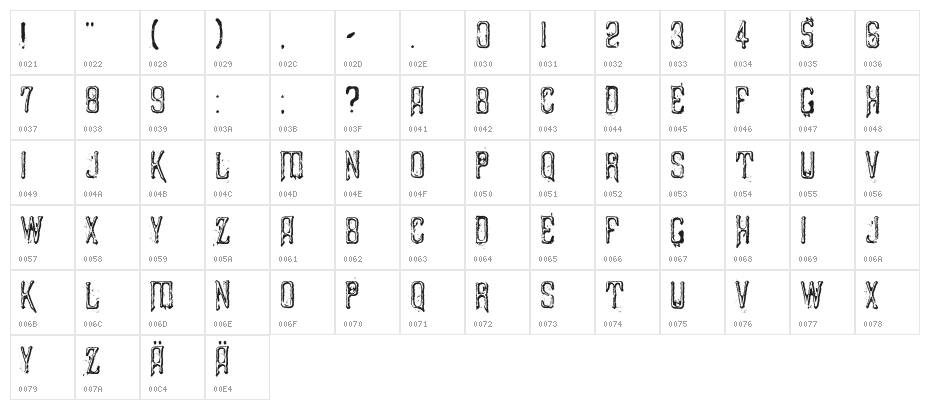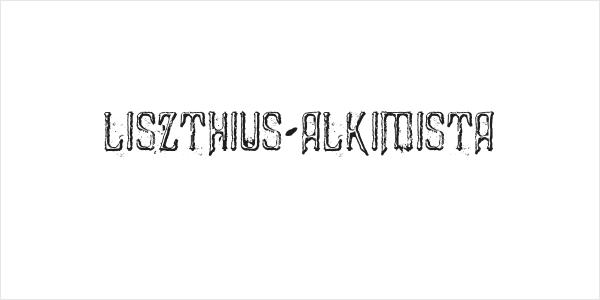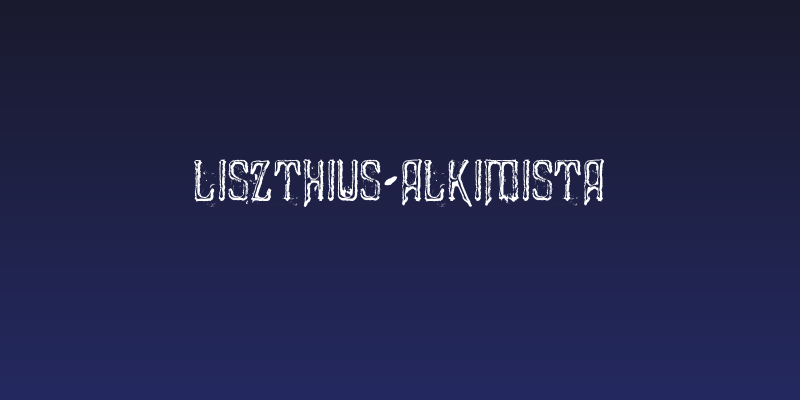
Liszthius-Alkimista Font
Liszthius-Alkimista Description
This font features a distressed, grunge style with a textured appearance that gives it a worn, vintage feel. The characters are bold and slightly condensed, with irregular edges that add to the rugged aesthetic. Each letter and number appears to have been eroded or weathered, creating a unique and eye-catching look. The font maintains legibility despite its decorative elements, making it suitable for impactful designs. The uppercase and lowercase letters are consistent in style, with numbers and special characters following the same distressed theme.
| Overall Style | Vintage, Grunge |
| Proposed Projects | Ideal for posters, album covers, branding for edgy or alternative products, and any design requiring a vintage or grunge look. |